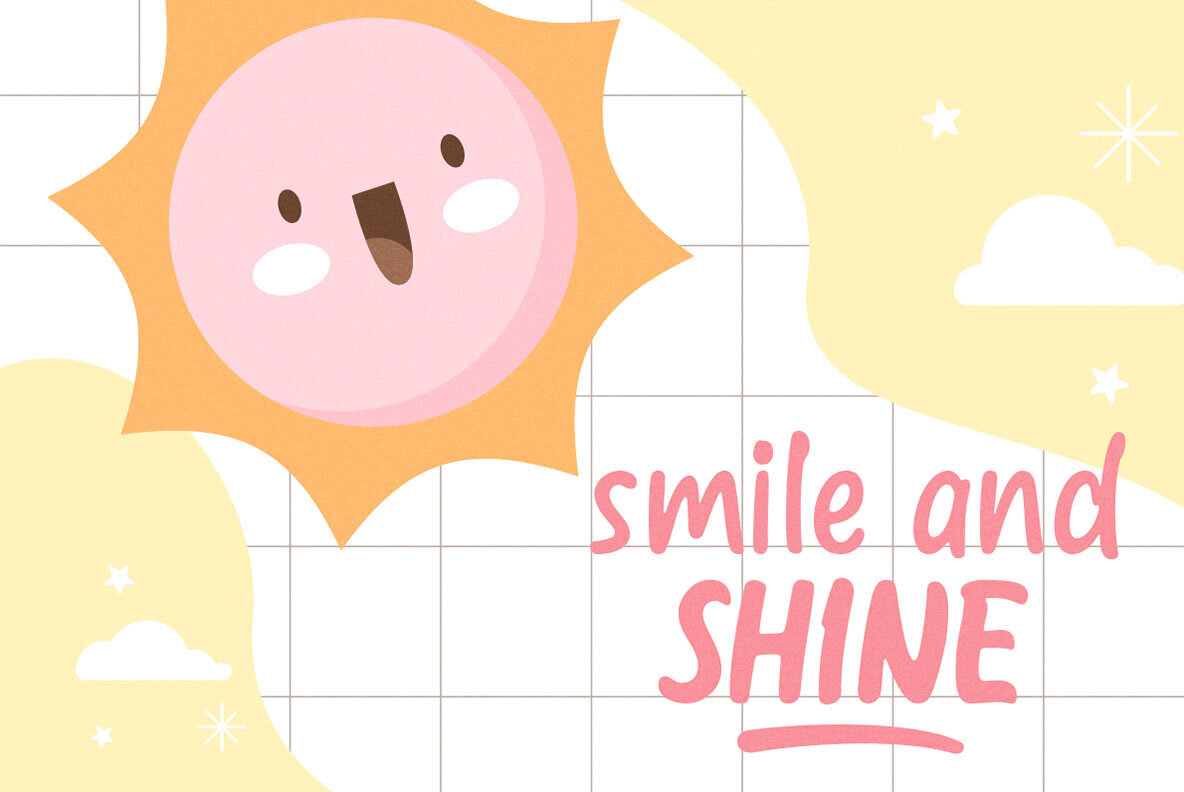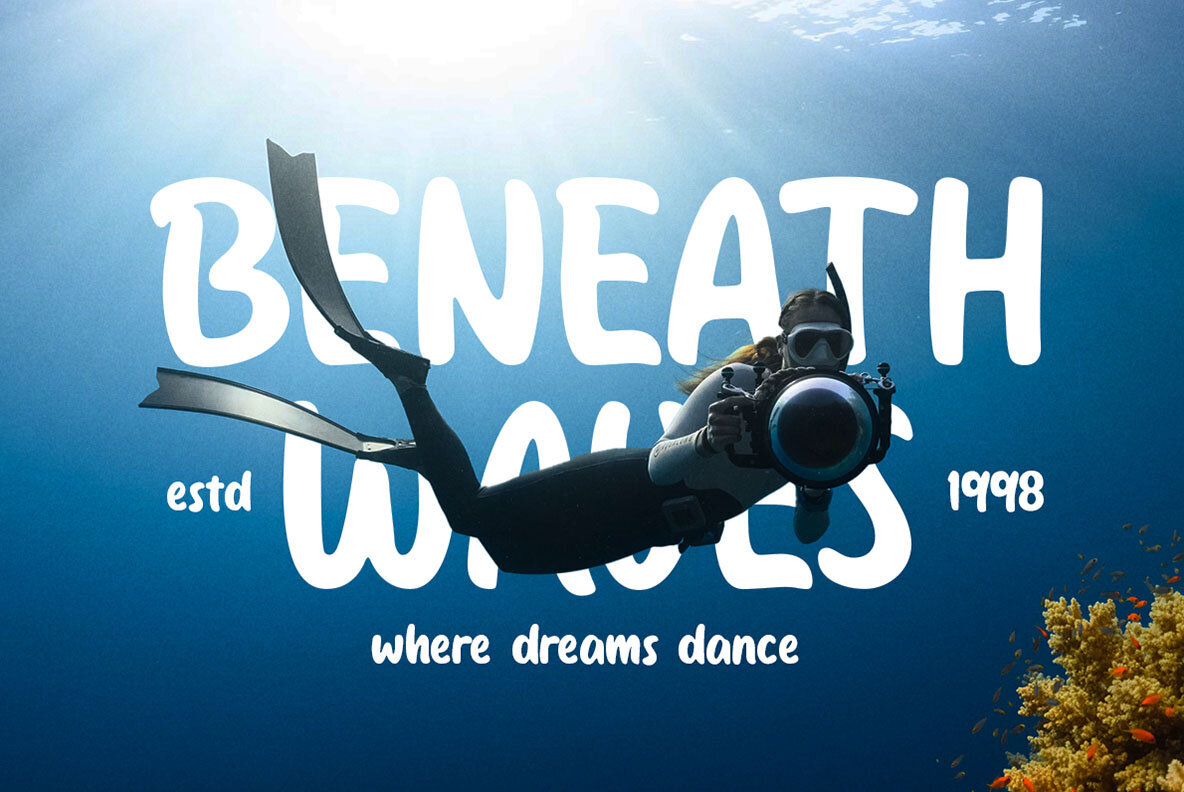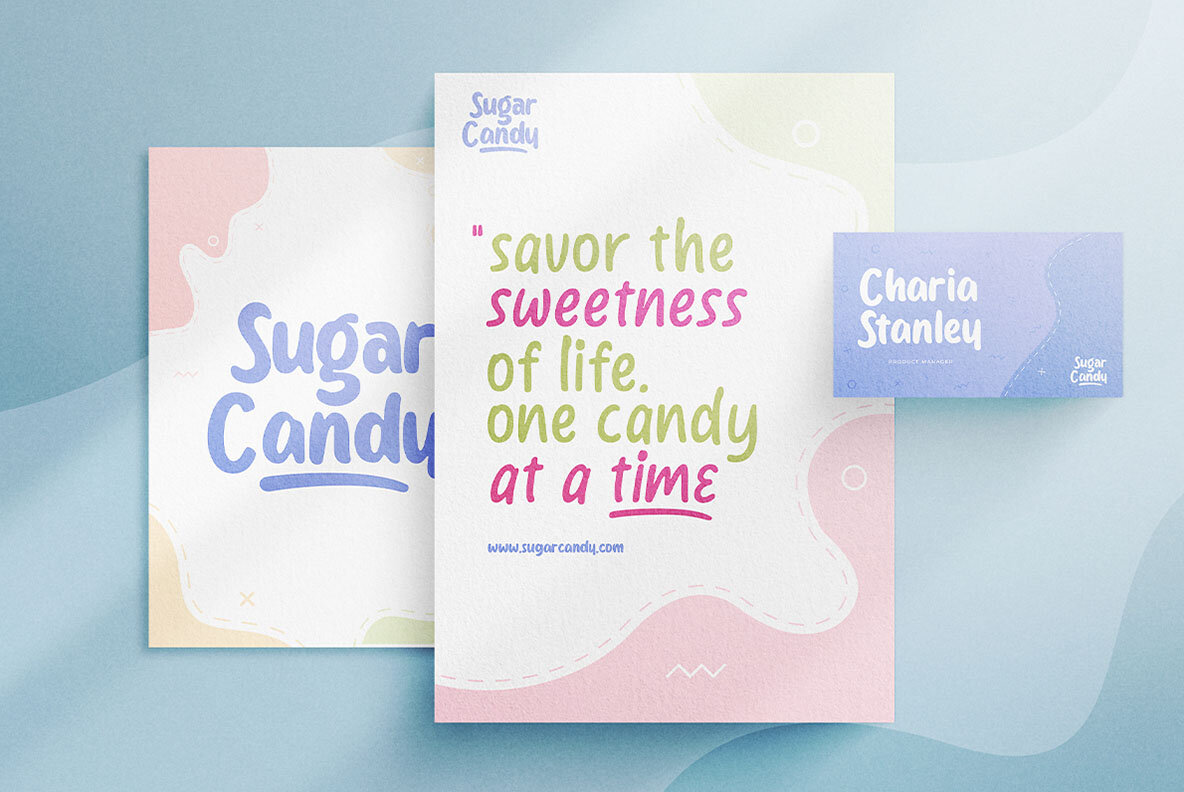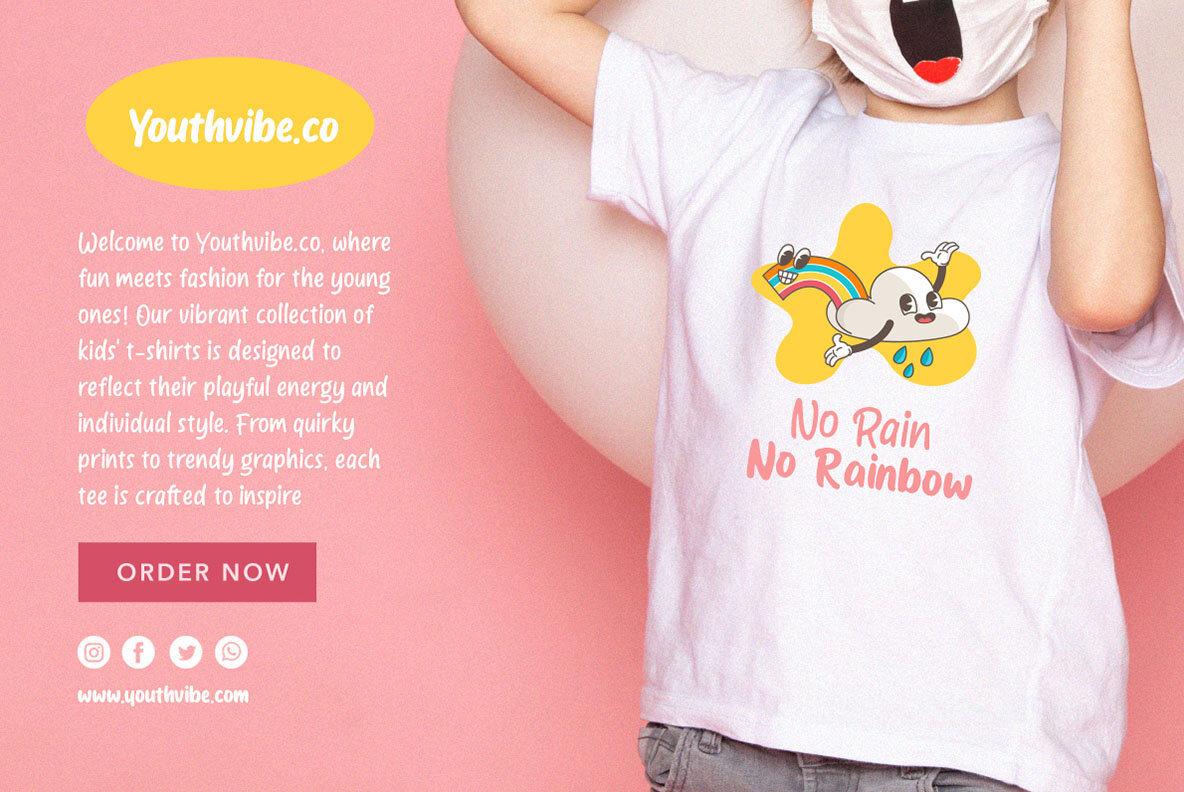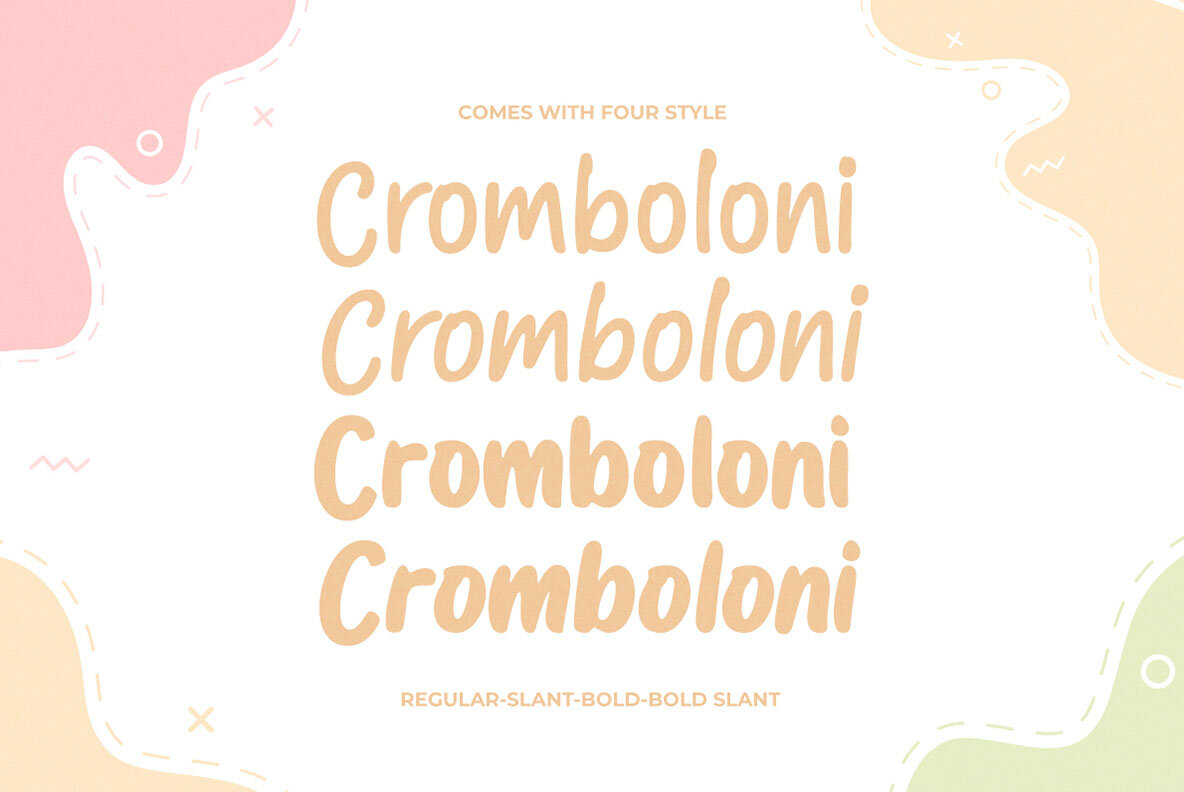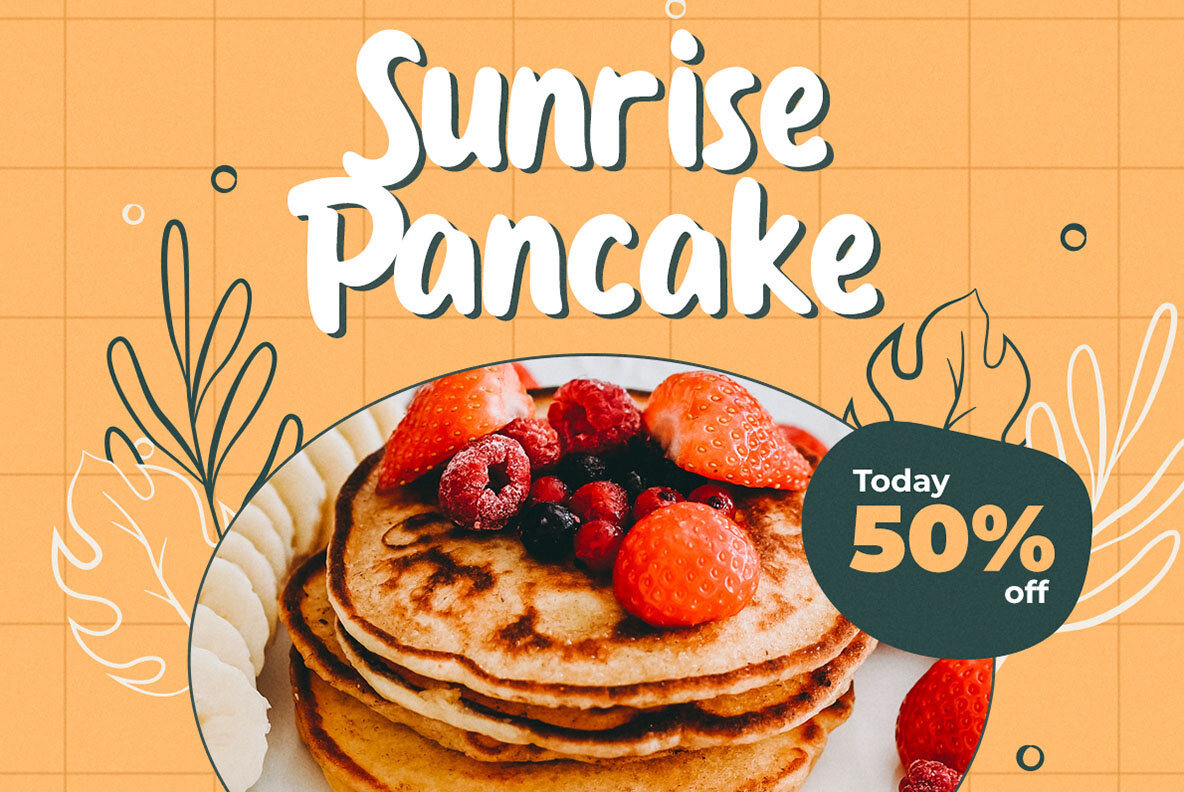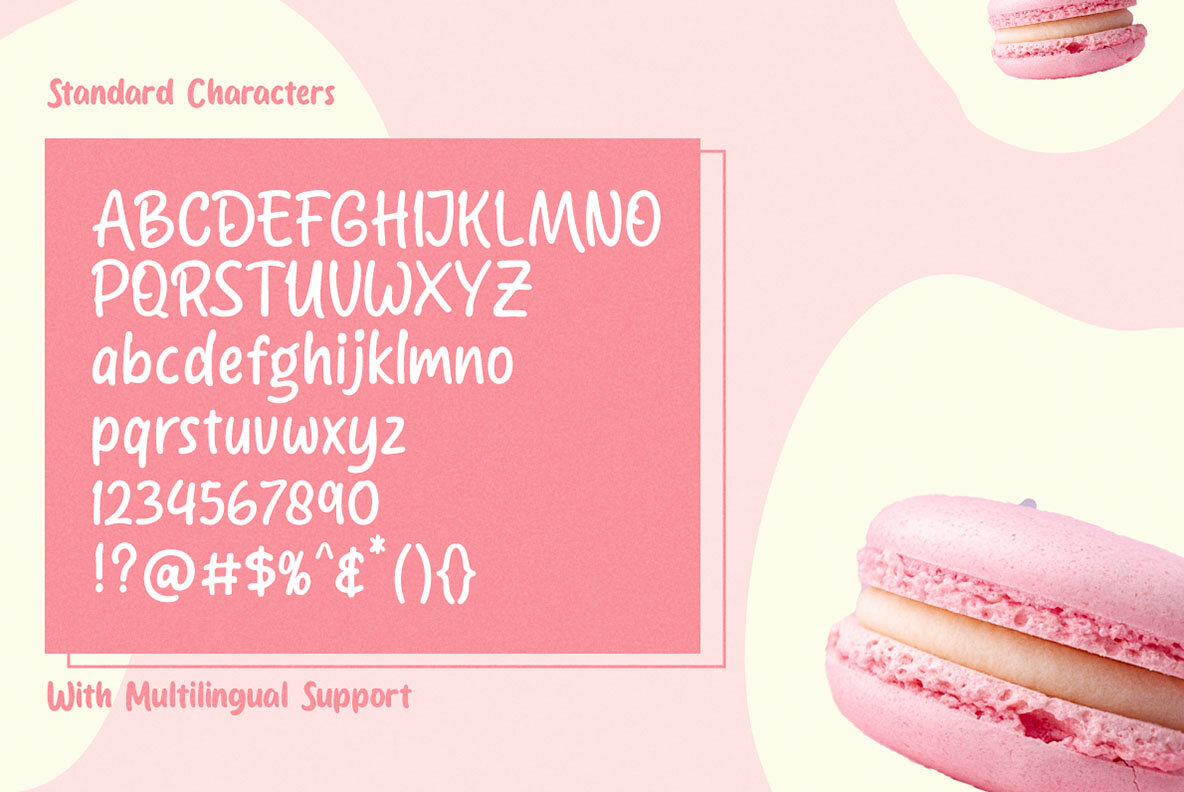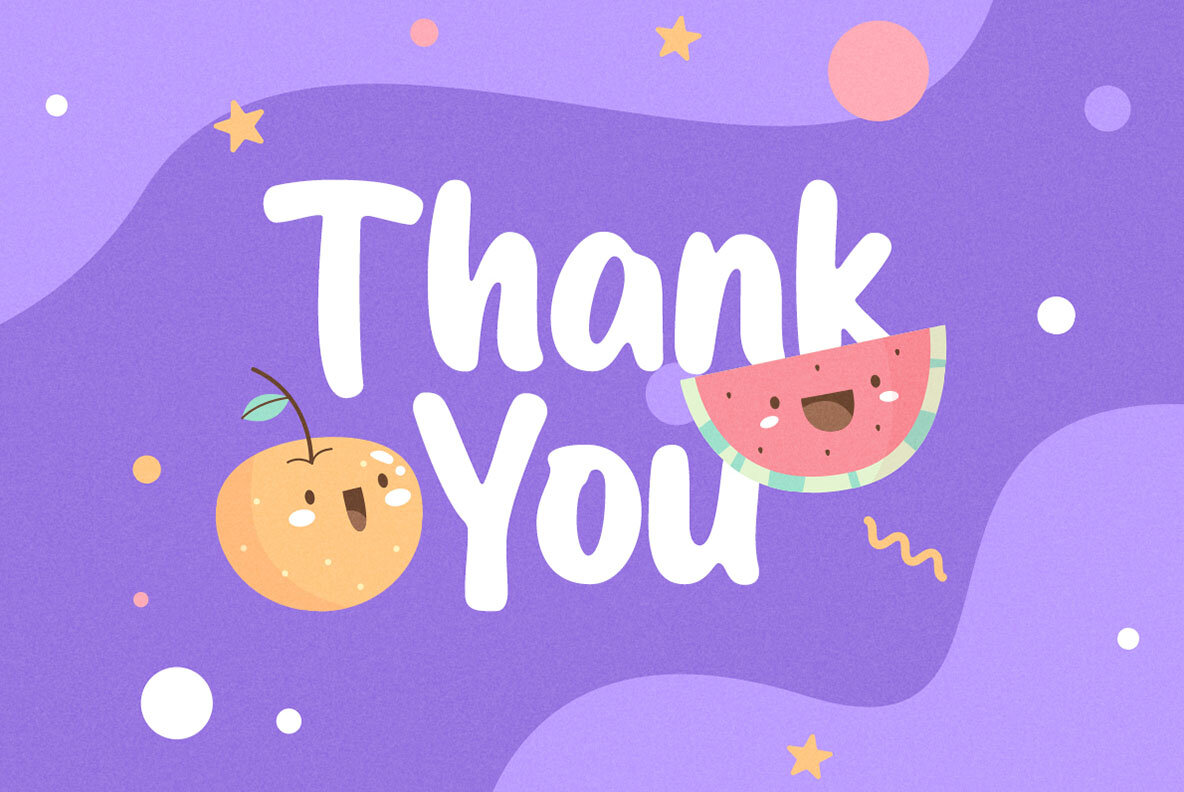
Berry Delights Font
Berry Delights by Letterhend Studio is a charming handwriting font family featuring four distinct styles: regular, slant, slant bold, and bold. This versatile typeface is ideal for use in logos, invitations, labels, magazines, books, greeting and wedding cards, packaging, fashion, makeup, stationery, novels, and a variety of advertising projects. For the best design experience, we recommend using programs that support OpenType features and Glyphs panels, such as Adobe applications and CorelDRAW, to fully access all glyph variations.Berry Delights: Handwriting Font with Multiple Styles